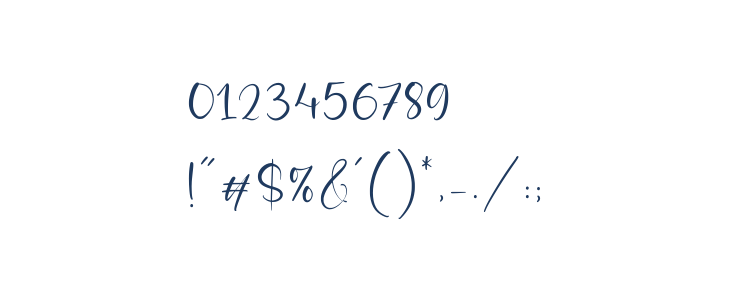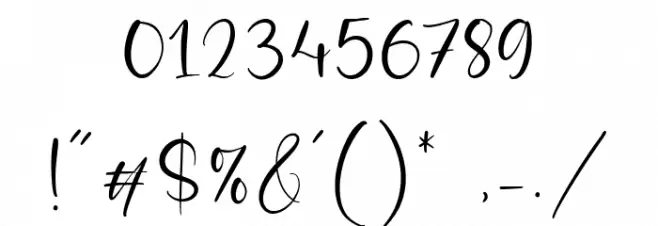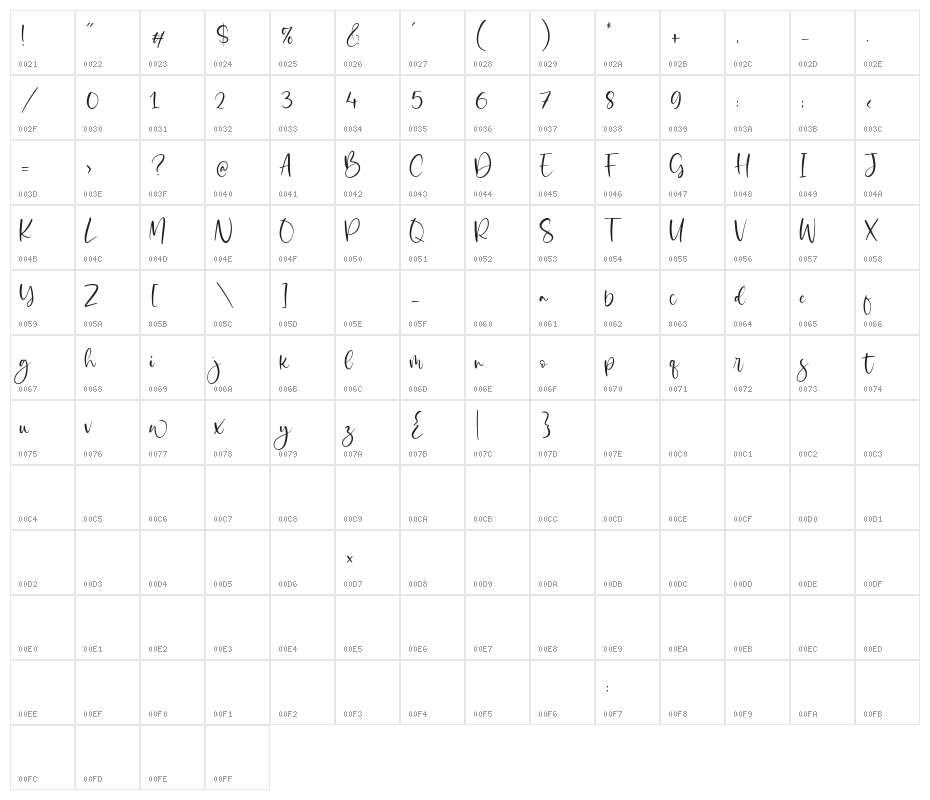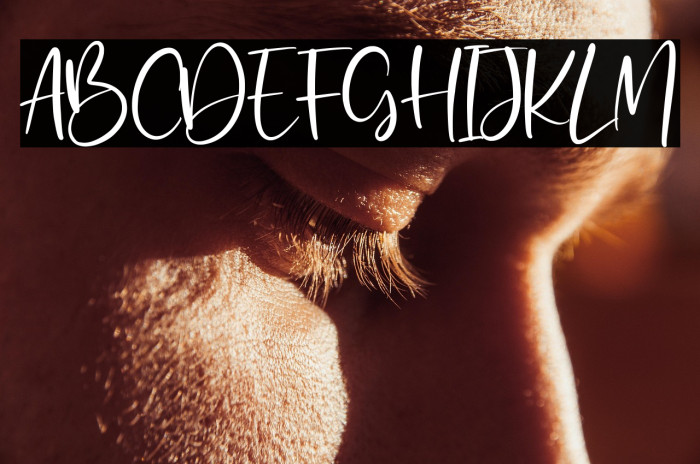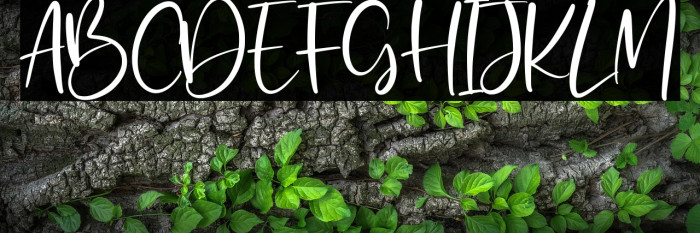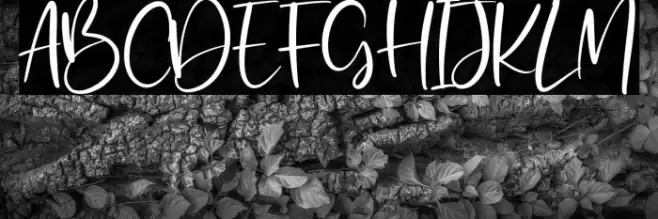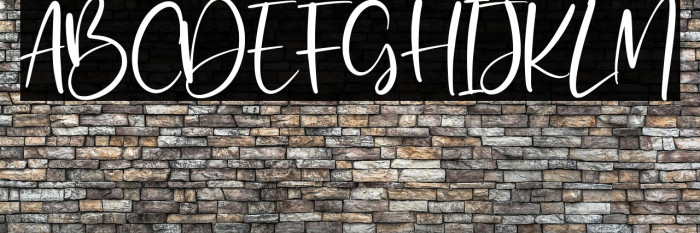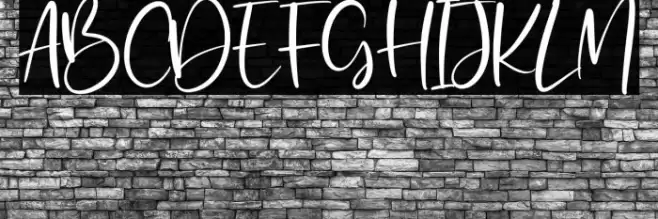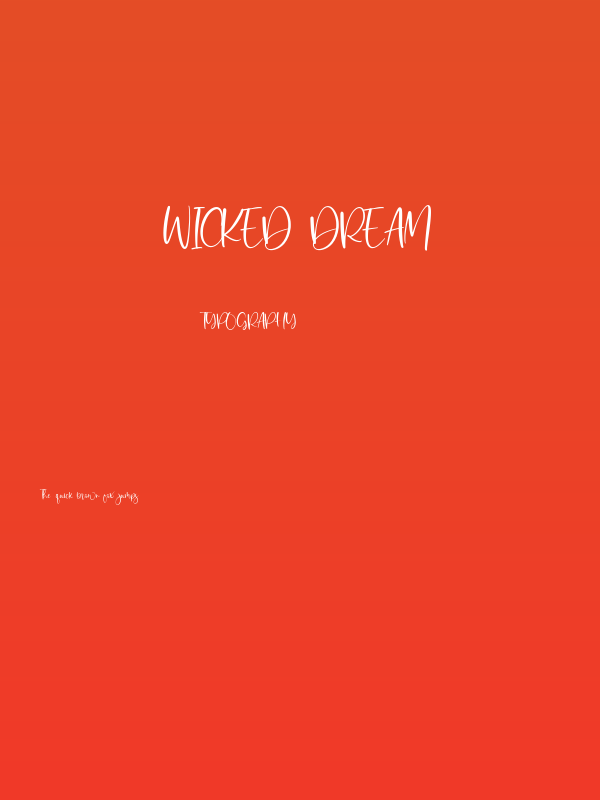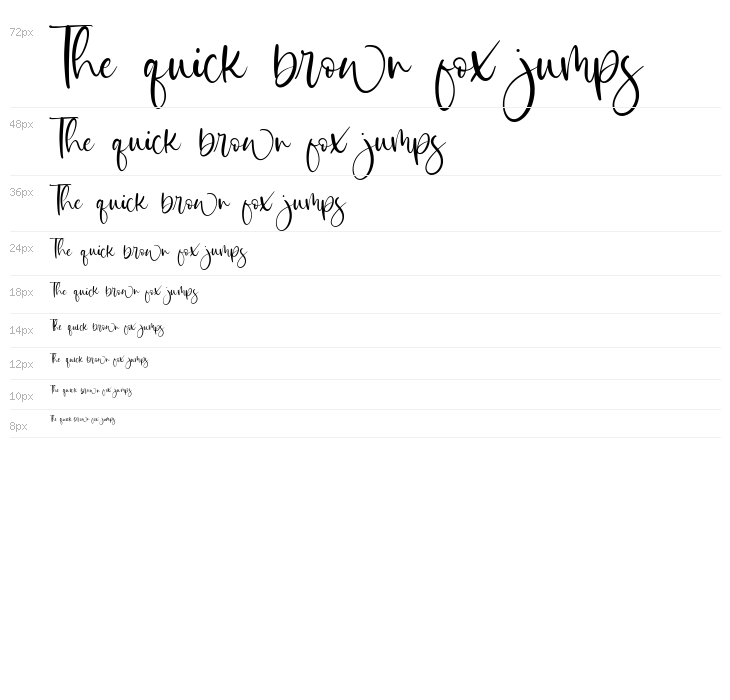
Wicked Dream Font
This font exudes a whimsical and artistic flair, characterized by its flowing, cursive style that mimics the fluidity of handwriting. The uppercase letters are bold and dynamic, with exaggerated loops and swirls that add a playful touch. The lowercase letters maintain a consistent style, with elegant curves and a slightly irregular baseline that enhances its handwritten appearance. Numbers and special characters are crafted with the same attention to detail, ensuring a cohesive look throughout. The overall design is both expressive and legible, making it suitable for creative projects that require a personal and artistic touch.
| Proposed Projects | Ideal for wedding invitations, greeting cards, branding, and artistic posters. |